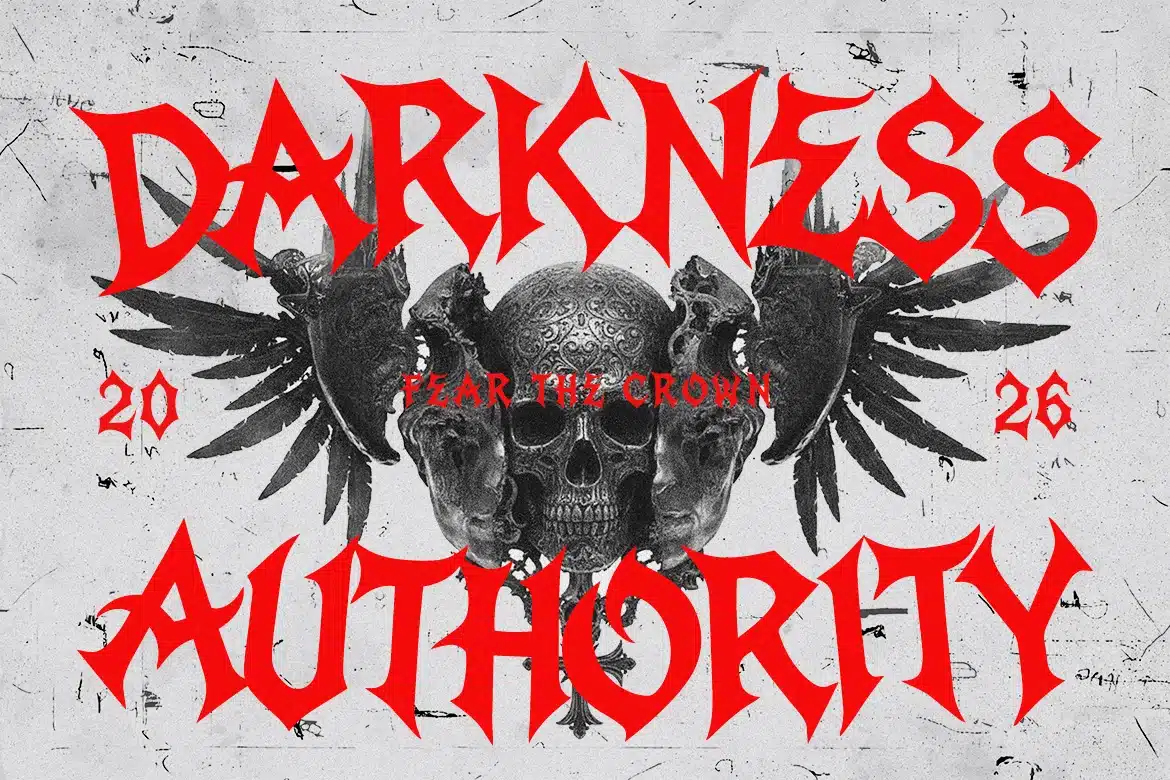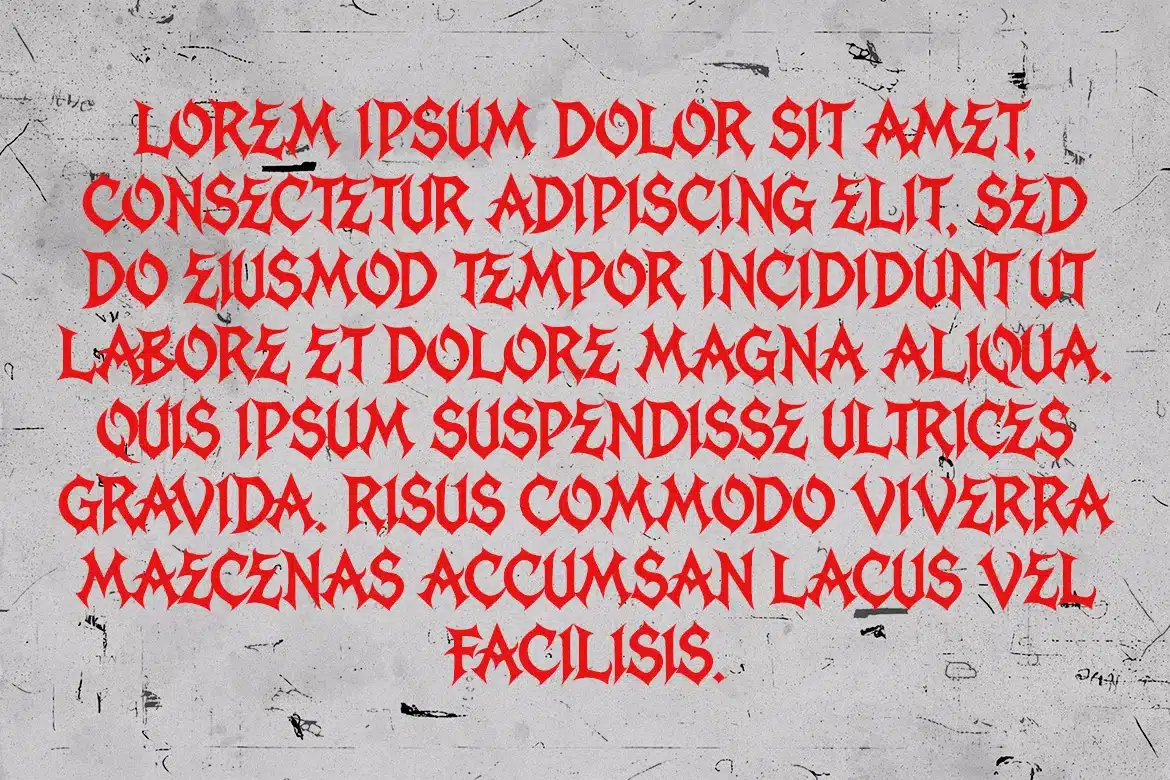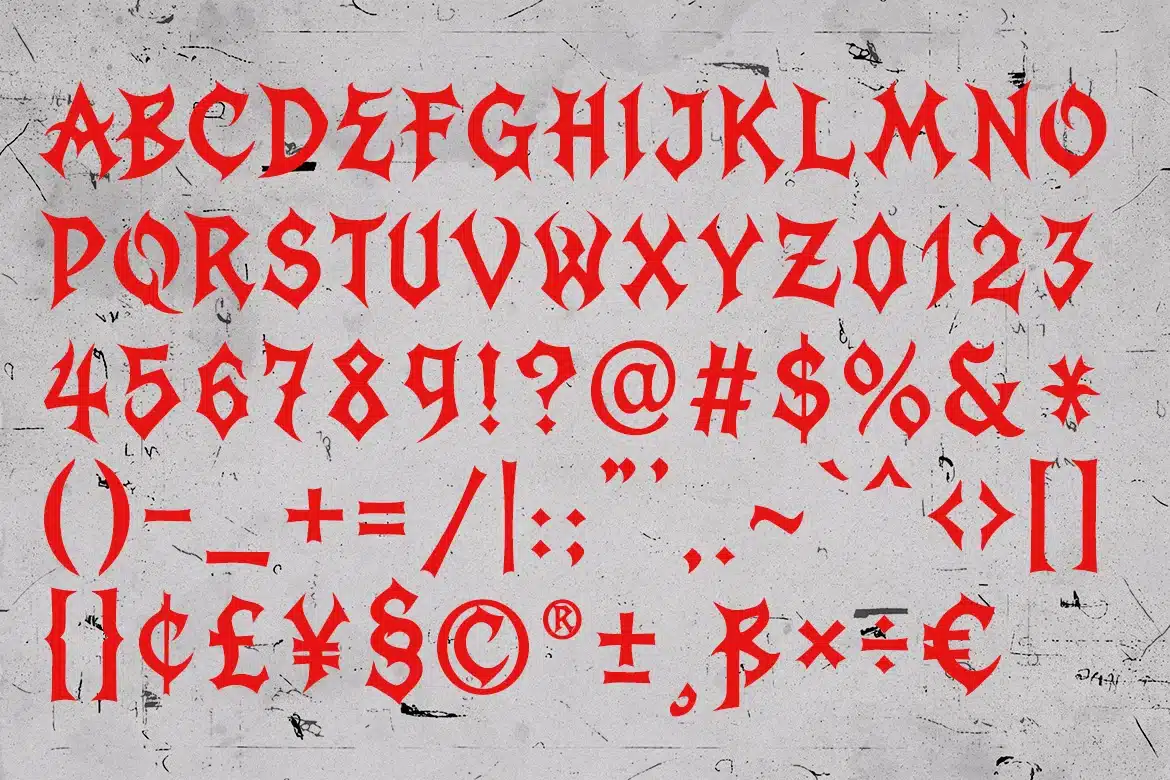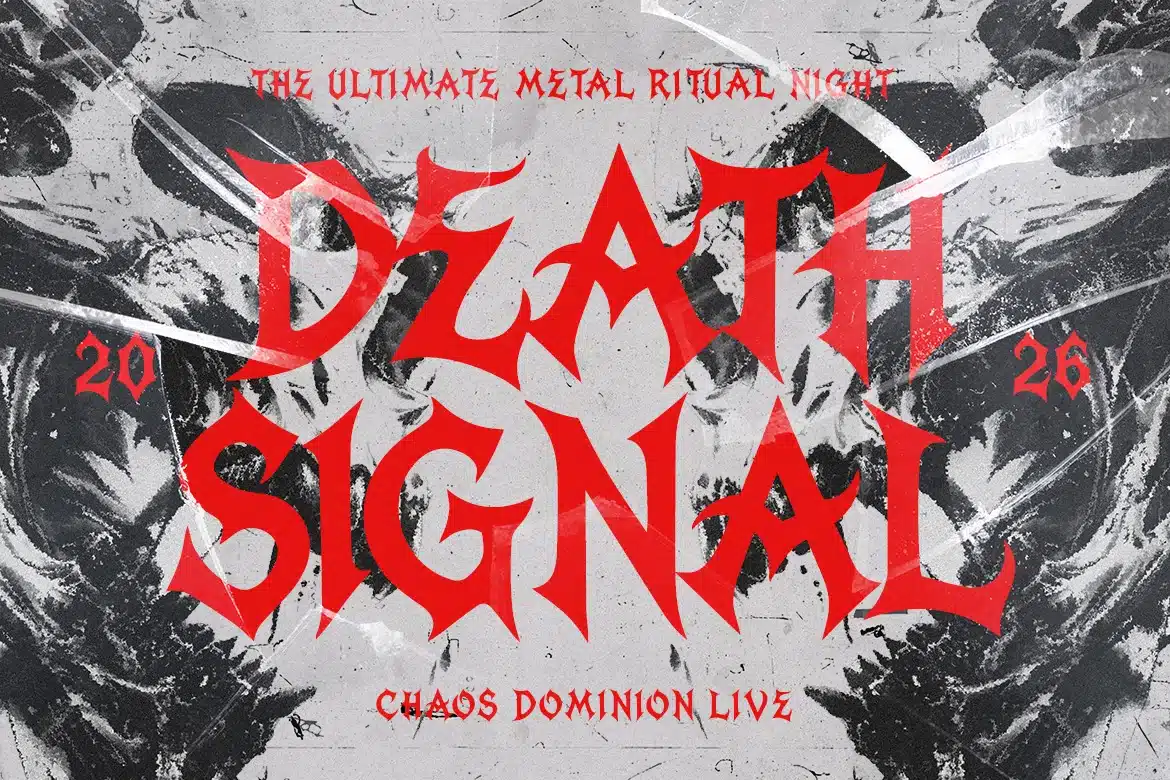
Neuvorte – Heavy Metal Blackletter Font
Neuvorte Heavy Metal Blackletter Font is an aggressive display typeface inspired by gothic blackletter and extreme metal aesthetics. Its sharp angles, spiked terminals, and dramatic forms create a dark and powerful visual presence that feels intense, rebellious, and unapologetically bold. The intricate structure adds a raw energy perfect for high-impact designs.
Best Used For:
Band Logos
Album Covers
Music Posters
Merchandise Design
Event Flyers
Gaming Titles
Horror Themes
Branding Projects